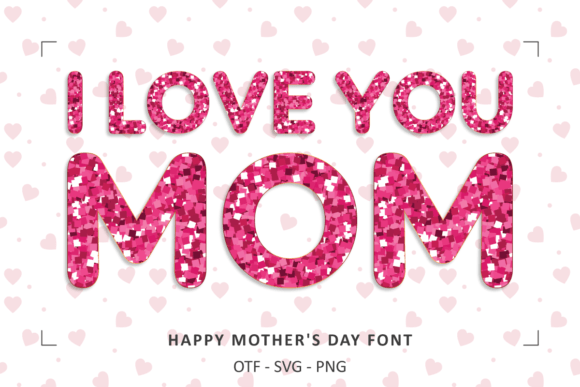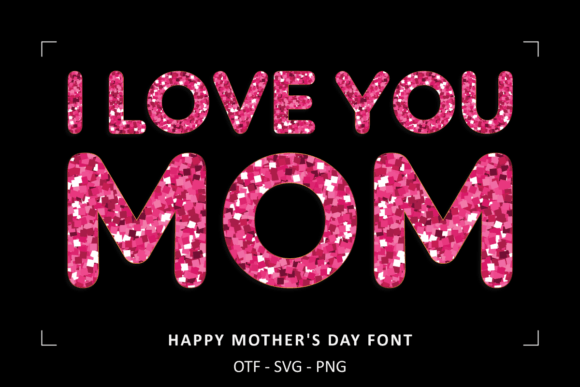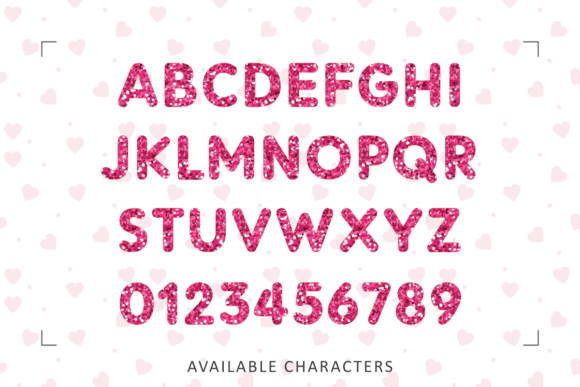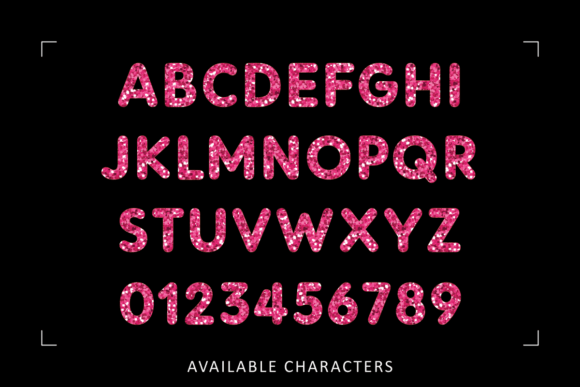
Happy Mothers Day Font
About the Happy Mothers Day Font
Crafted with precision, the Happy Mothers Day Font is ready to bring your ideas to life. Introducing “Happy Mothers Day Font” with a classy touch. — Pink glitter patterns convey the love of a mother, Mother’s Day. This font can be used in a variety of ways and will make your work look super cute! Its mesmerizing shine twinkles like someone cast a spell on it that will brighten up each of your designs. Perfect for logos, posters, websites, T-shirts and more. Add it confidently to your projects, and you will love the results.
This font’s playful, celebratory style is ideal for projects requiring a touch of feminine charm and visual sparkle. It excels in headlines, short text blocks on posters or invitations, and branding elements where a lighthearted and celebratory feel is desired. Think Mother’s Day cards, children’s books, or product packaging for feminine-oriented products.
However, avoid using “Happy Mothers Day Font” for body text or long paragraphs; its decorative nature compromises readability at smaller sizes. It’s also not suited to UI design or situations demanding a high level of legibility.
Pairing it with a clean sans-serif like Open Sans for body copy or a classic serif like Garamond for a more sophisticated contrast will create visual harmony. For a more modern feel, consider pairing it with a geometric sans-serif such as Montserrat. These pairings balance the font’s decorative elements with clear, readable text.